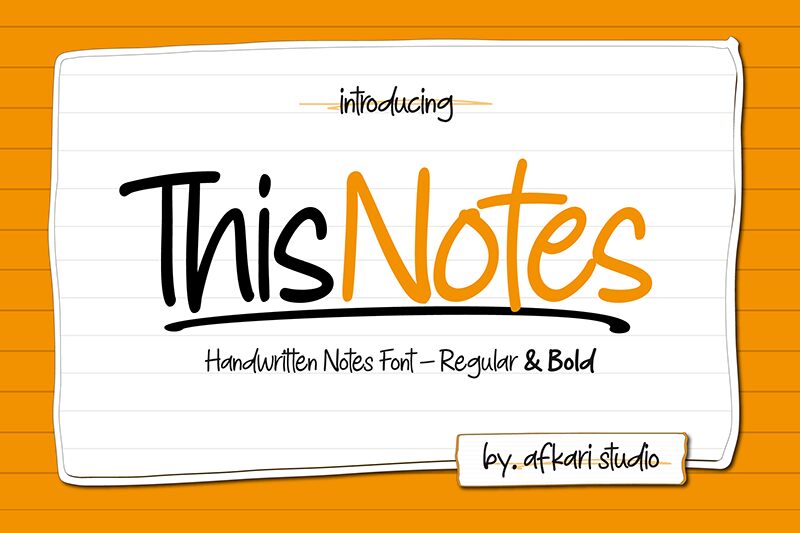
This Notes breathes life into digital canvases with its handwritten allure, embodying the spirit of personal touch in a semi-light font weight. Created by Musthafa Kamal Emje from Afkari Studio, this font stands as a tribute to the intimate act of penning down thoughts. Its organic contours and subtle irregularities echo the warmth of handcrafted marker notes, inviting an element of human connection into your work.
Embracing both casual charm and readability, This Notes is exceptionally suited for branding, editorial designs, and social media graphics that demand a stroke of personality. Whether you're crafting heartfelt invitations or adding character to marketing materials, This Notes ensures your message resonates with authenticity and creativity.
Delve into the unique narrative this font has to offer and let its distinctive style narrate your story with an artisan’s touch.